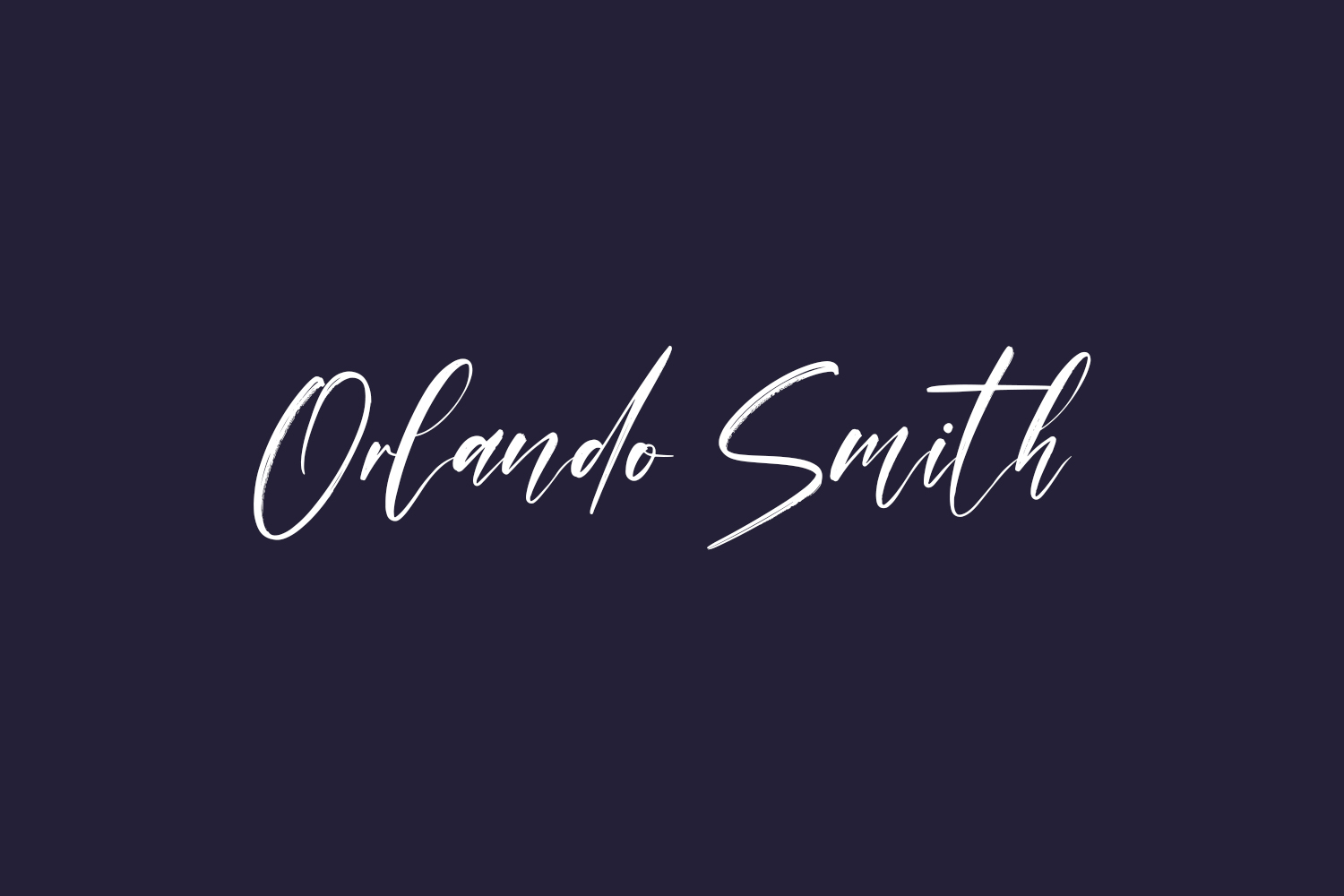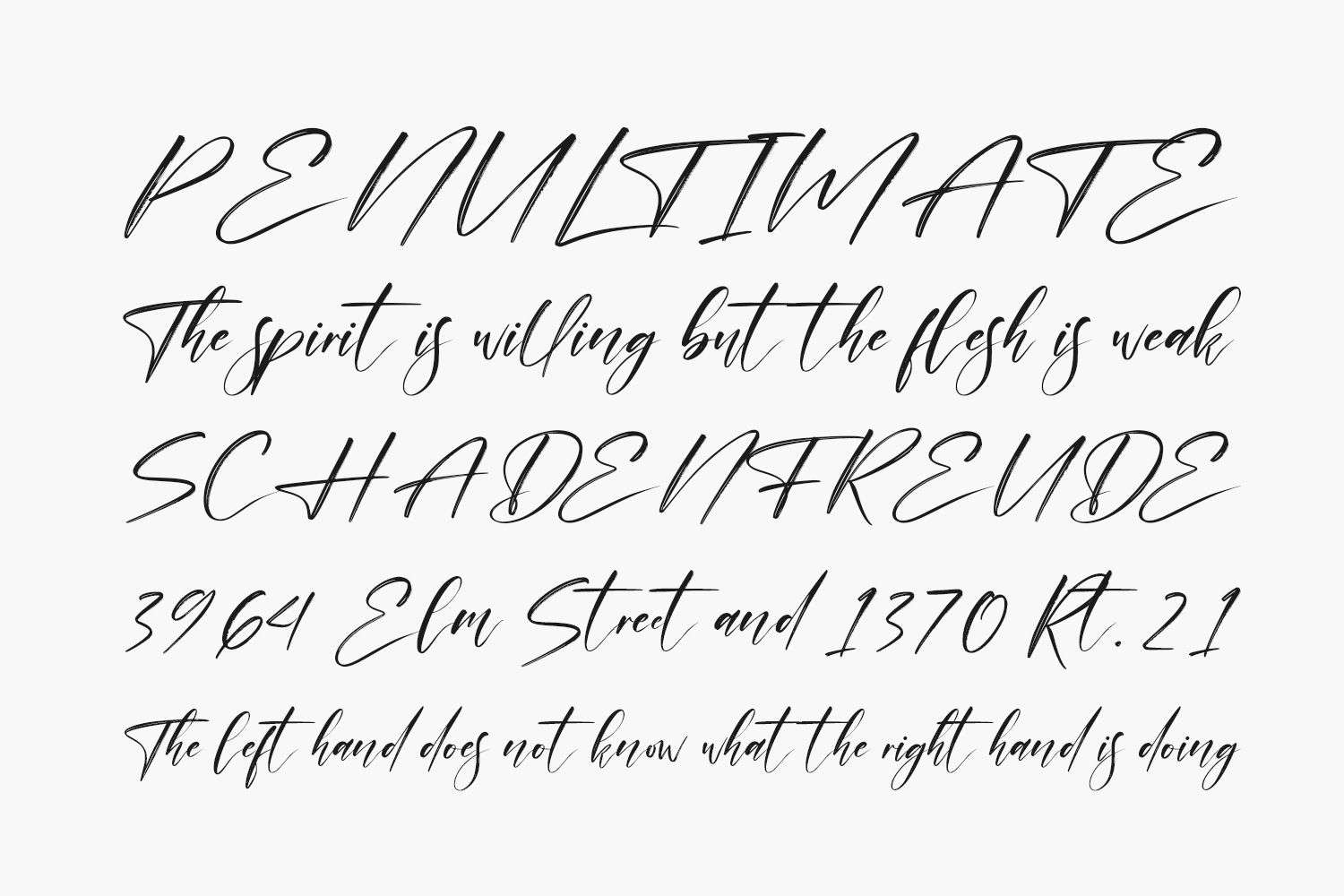
Orlando Smith Free Font is a delicate and flowing script font. Fall for its ravishing style and use it to create gorgeous wedding invitations, beautiful stationary art, eye-catching social media posts, and much more. Orlando Smith Free Font was designed by Perspectype Studio and is free for personal use only. Please purchase the full version for commercial use.